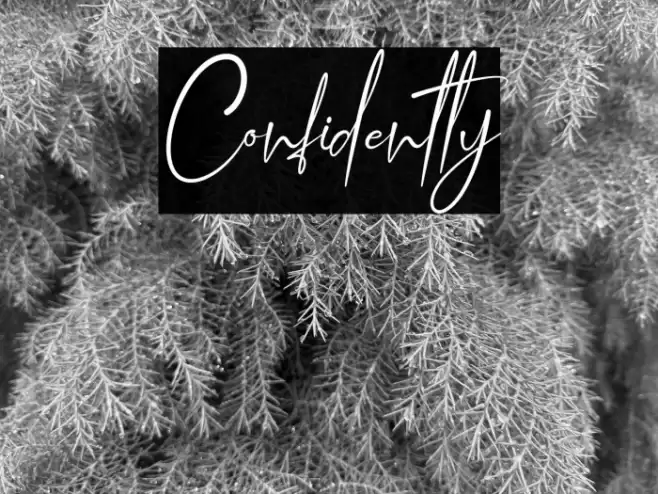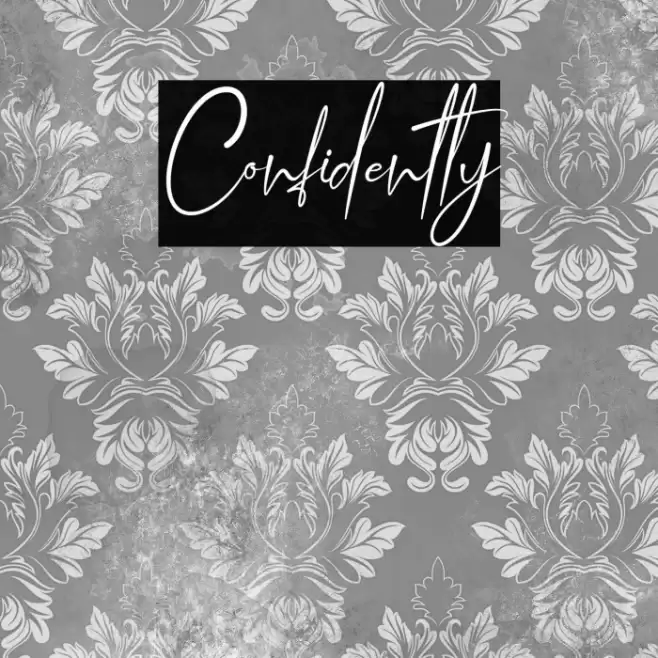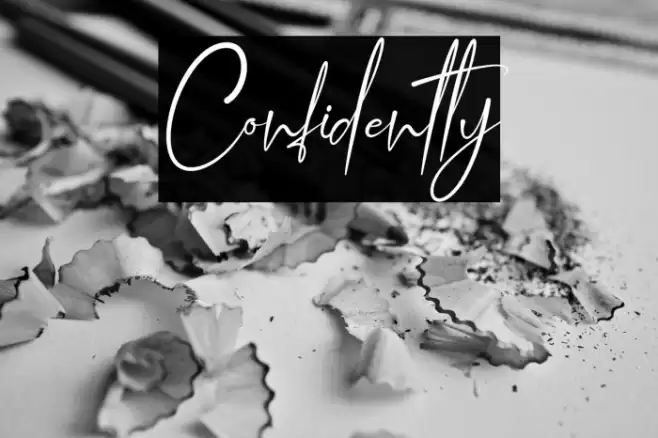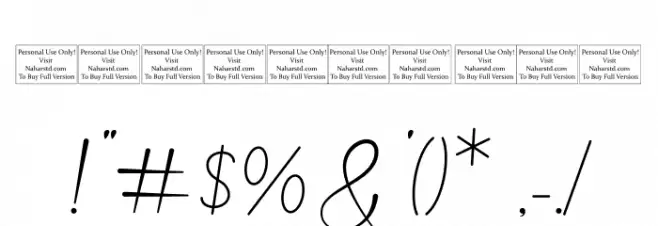
Confidently Font
Confidently Description
This font features an elegant and flowing script style, characterized by its smooth, cursive strokes and graceful curves. The uppercase letters exhibit a sophisticated flair with extended lines and loops, while the lowercase letters maintain a consistent fluidity, creating a harmonious balance. The numerals and special characters are designed with the same attention to detail, ensuring a cohesive appearance across all elements. This font exudes a sense of refinement and artistic expression, making it ideal for projects that require a touch of elegance and creativity.
An elegant and flowing script font with graceful curves and cursive strokes from Regular fonts.
- Proposed Projects: Ideal for wedding invitations, branding, greeting cards, and elegant logos.
- Overall Style: Elegant
- Use Case: Logos, Invitations, Branding